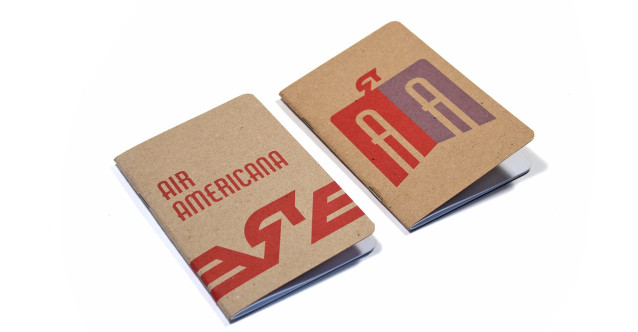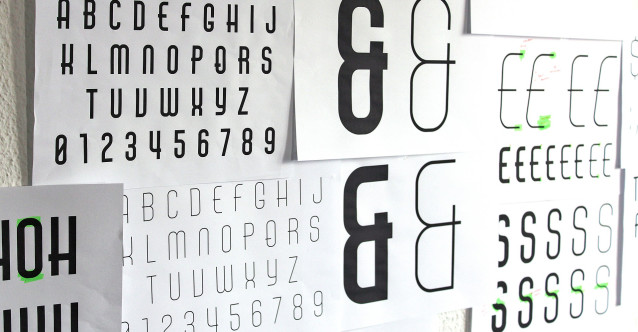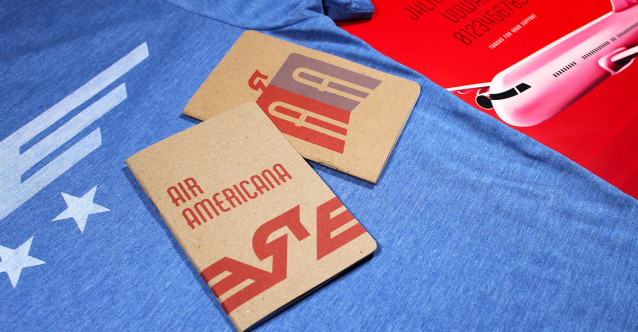
Air Americana Font
Air Americana Font: The story of the typeface began in 2014, when inspired by the Air America logo, I created the first version of Air Americana just for fun. After 8+ years, I felt it was time for a redesign, giving every glyph the care and attention it deserves.